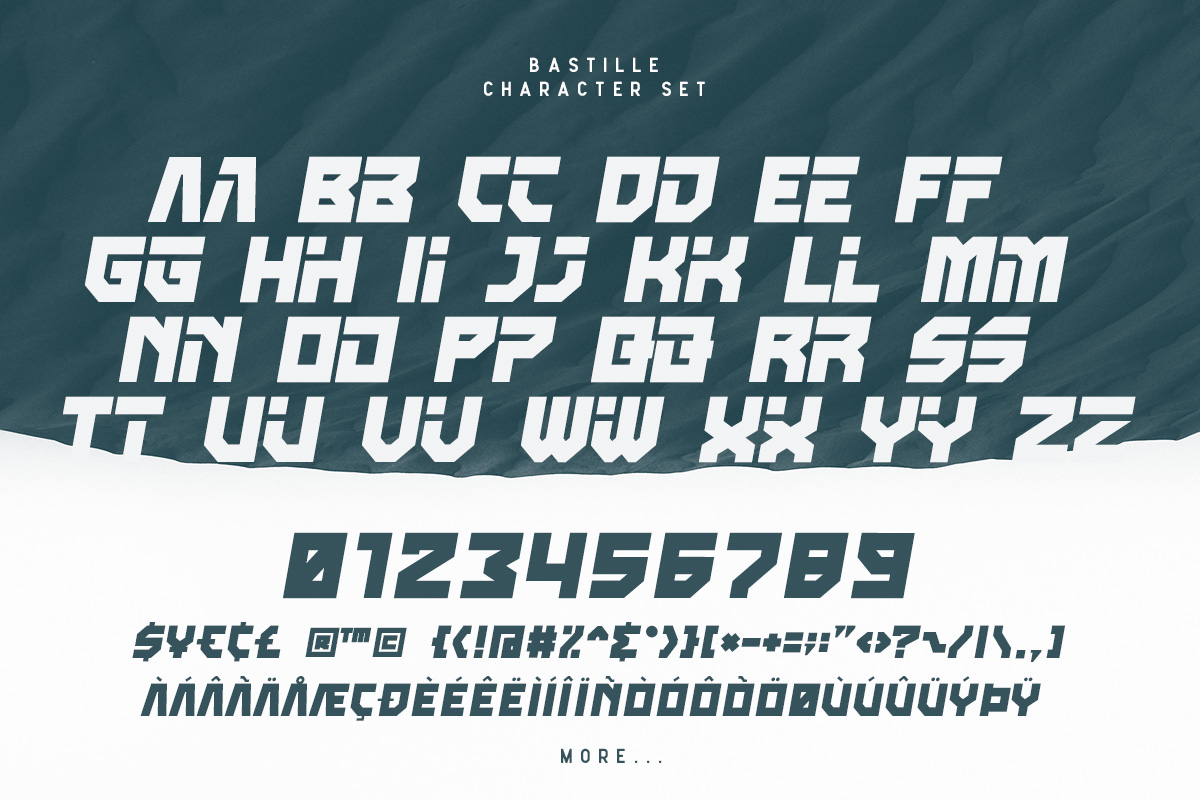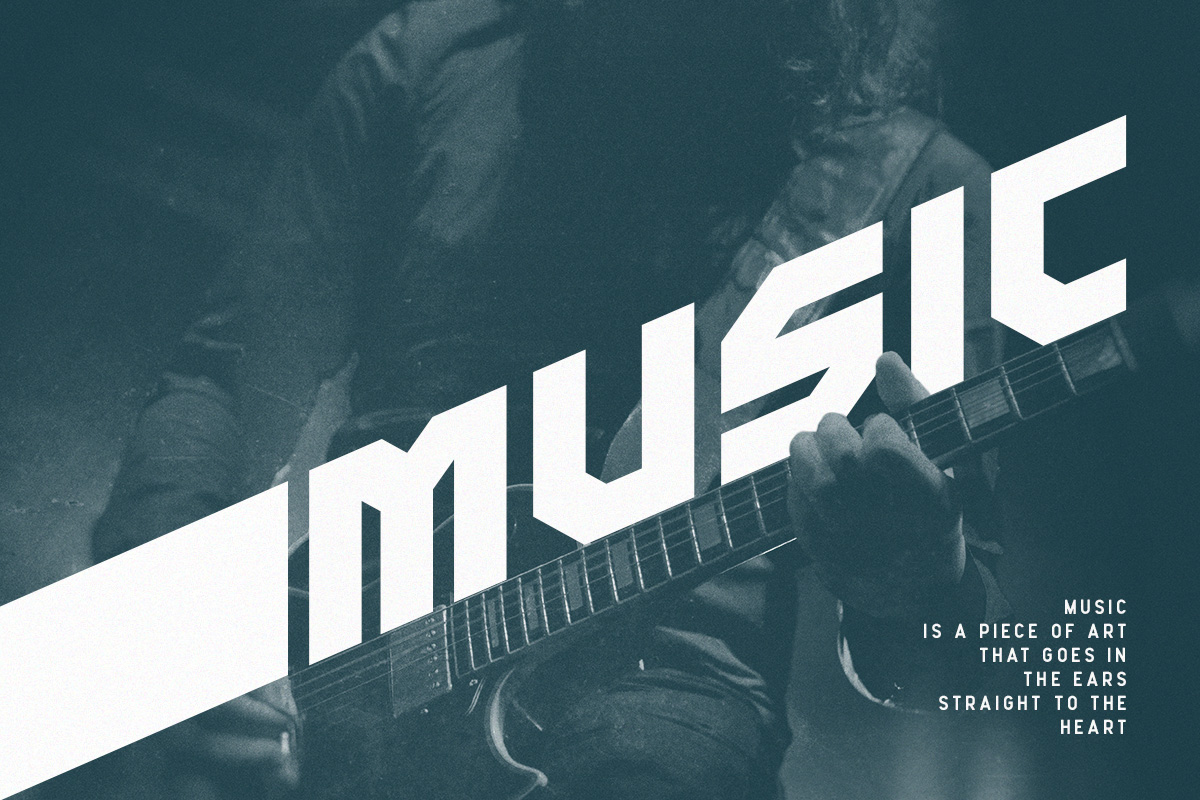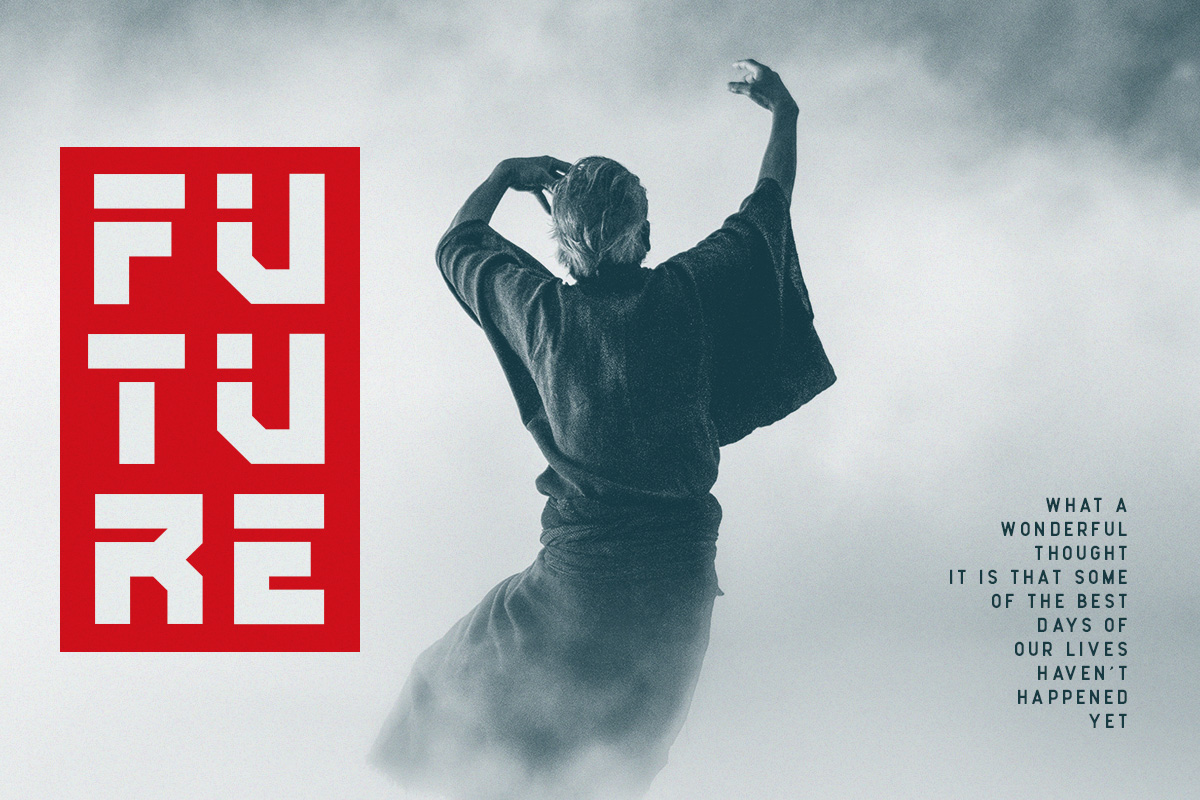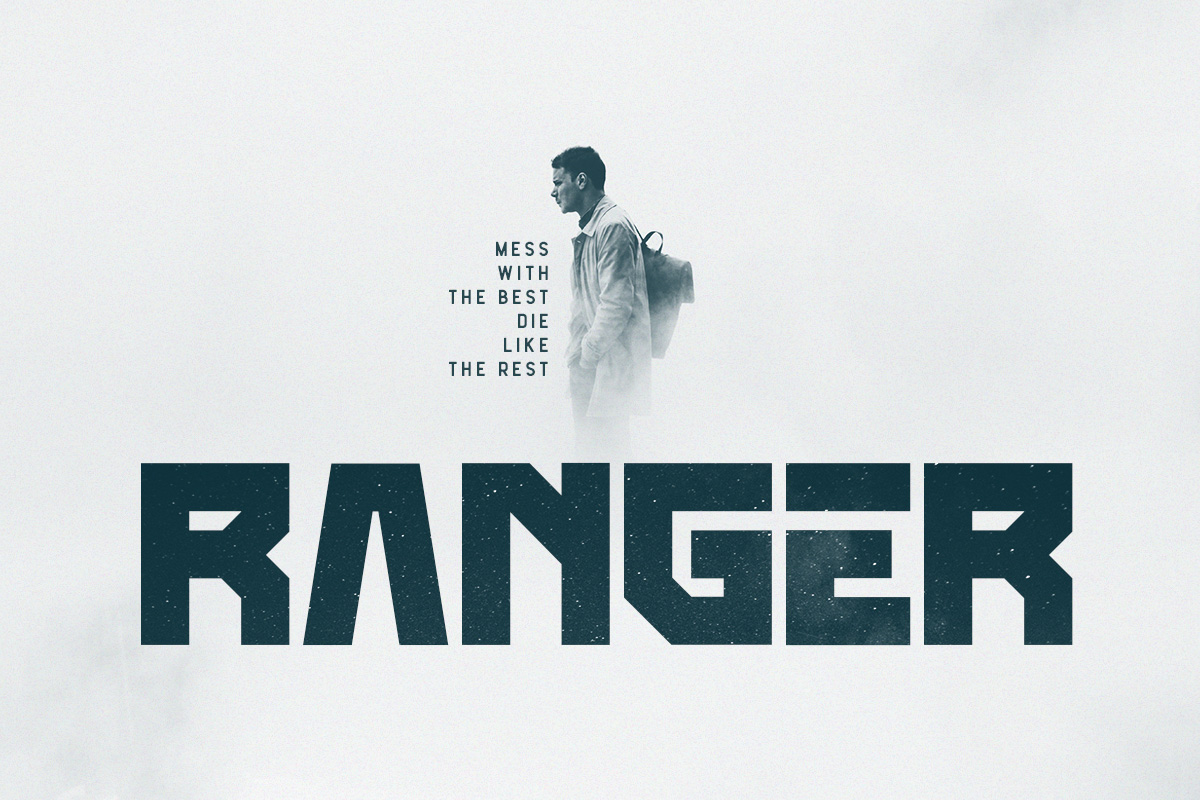
Bastille Font: Unleash the Power of a Bold Display Font
In the world of typography, a great font can make all the difference in creating a stunning design. If you’re looking for a font that exudes masculinity, energy, and a sporty edge, look no further than Bastille Font. This brazen display font is perfect for designers and crafters who want to add a bold and futuristic appeal to their work. In this article, we’ll dive into the world of Bastille Font and explore its features, uses, and benefits.
The Characteristics of Bastille Font
Bastille Font is a sans-serif display font that boasts a strong and confident presence. Its bold and chunky design makes it perfect for headlines, titles, and any design element that needs to stand out. The font’s masculine and energetic vibe makes it ideal for designs that require a sporty edge, such as sports branding, fitness, and outdoor gear.
One of the key features of Bastille Font is its adaptability. This font can be used in a wide range of design ideas, from futuristic and technological concepts to bold and edgy branding. Whether you’re designing a logo, poster, or social media graphic, Bastille Font is sure to make a statement.
Who Can Benefit from Bastille Font?
Bastille Font is a versatile font that can be used by a variety of designers and crafters, including:
- Graphic designers looking for a bold and eye-catching font for their designs
- Branding experts who want to create a strong and memorable brand identity
- Advertising agencies seeking a font that can grab attention and convey energy
- Crafters and DIY enthusiasts who want to add a personal touch to their projects
The Benefits of Using Bastille Font
So, why choose Bastille Font for your design projects? Here are just a few benefits:
- Attention-grabbing: Bastille Font is designed to stand out and grab attention. Its bold and chunky design makes it perfect for headlines and titles.
- Versatile: This font can be used in a wide range of design ideas, from sporty and outdoorsy to futuristic and technological.
- Easy to read: Despite its bold design, Bastille Font is easy to read, even at small sizes.
- Unique: With its masculine and energetic vibe, Bastille Font is sure to set your design apart from the crowd.
How to Use Bastille Font
Here are a few tips for using Bastille Font:
- Use it boldly: Bastille Font is designed to be used boldly, so don’t be afraid to experiment with different sizes and colors.
- Pair it with contrasting fonts: Pair Bastille Font with a contrasting font to create visual interest and add depth to your design.
- Experiment with different colors: Try out different colors and gradients to add an extra layer of visual interest to your design.
In conclusion, Bastille Font is a powerful and versatile display font that is perfect for designers and crafters who want to add a bold and sporty edge to their work. With its masculine and energetic vibe, adaptability, and attention-grabbing design, Bastille Font is sure to make a statement in any design project. So why wait? Download Bastille Font today and unleash the power of a bold display font in your designs!